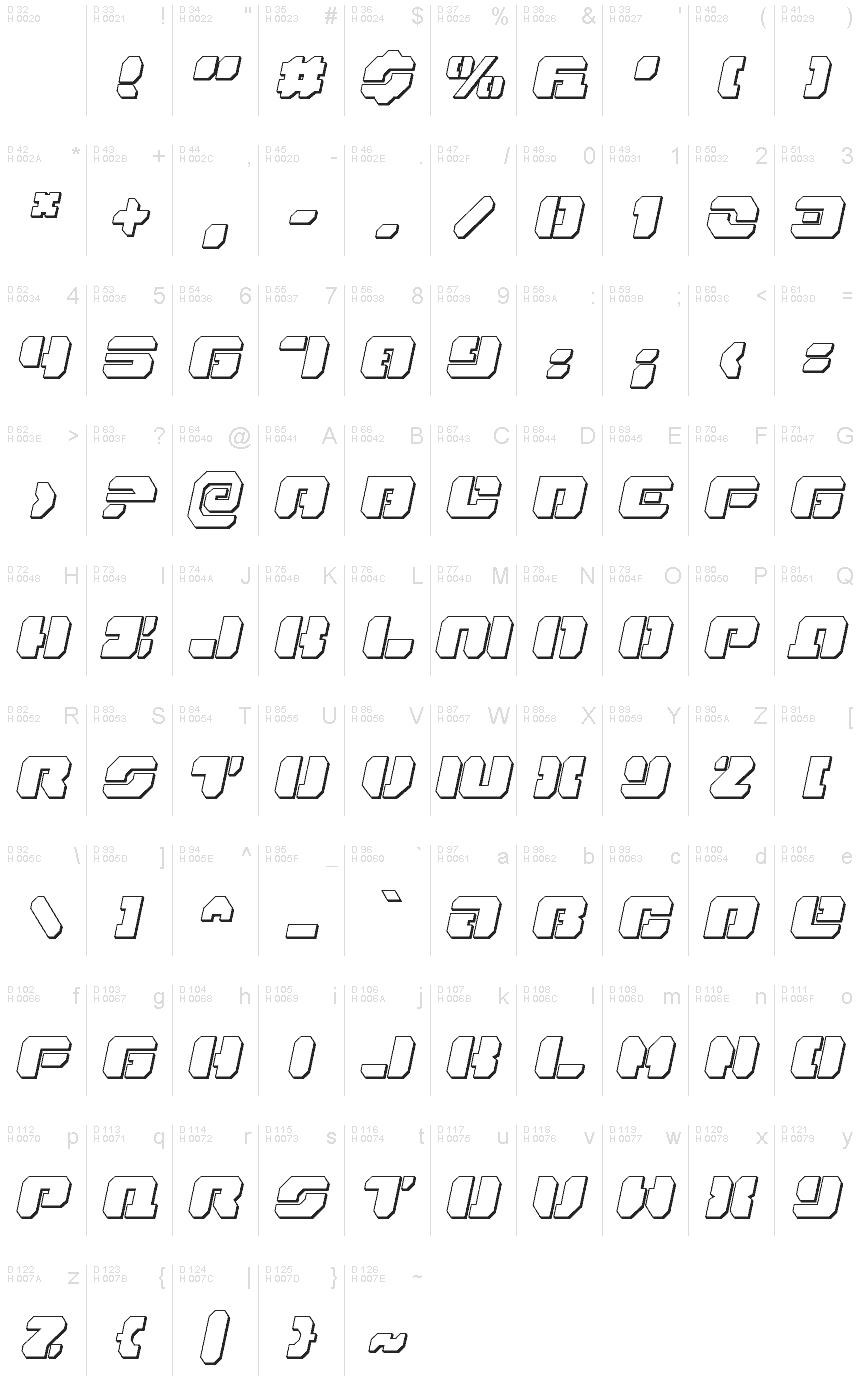
Dan Stargate 3D Semi-Italic font by Iconian Fonts is a techno-inspired futuristic display font with an expanded width and bold weight. The geometric font features angular edges and a digital feel designed to look modern to impress viewers. The 16 styles of Dan Stargate are built as an entire typeface family that can support complex designs.
Use Dan Stargate in various print projects like brochure design, magazine covers, book covers, posters, and flyers. It can also be used in packaging design for toys or software boxes. More usages include digital media like social media posts and advertisements, mobile applications or websites with the latest tech/devices content subjects offered.